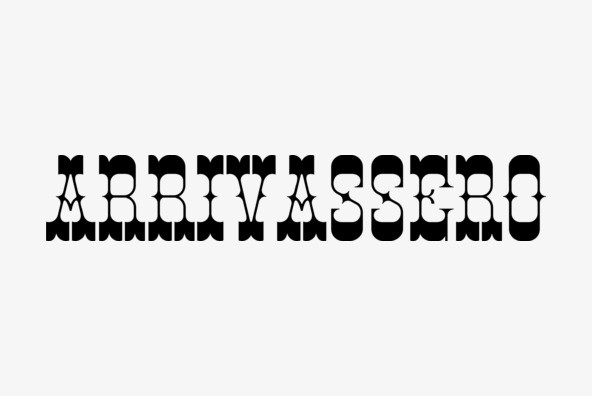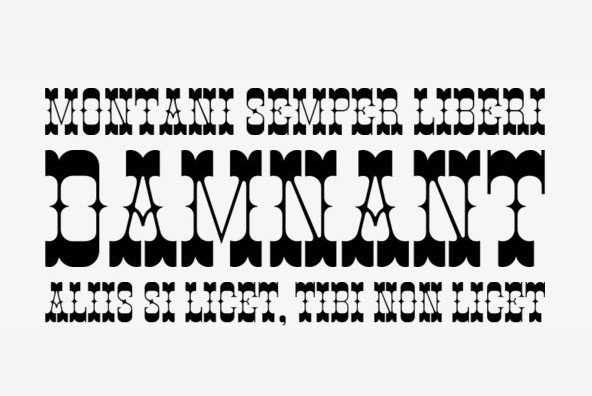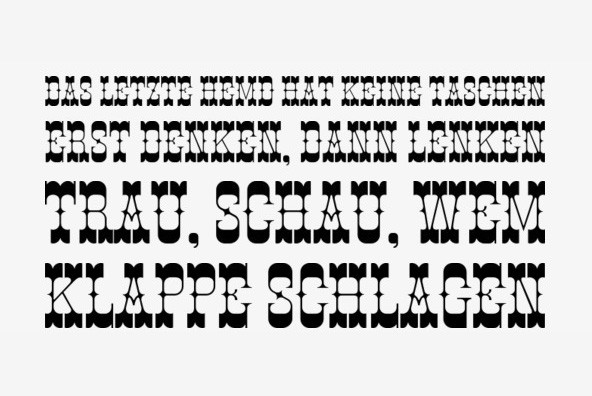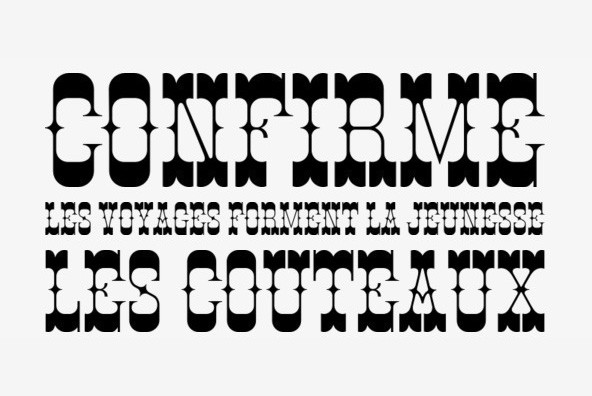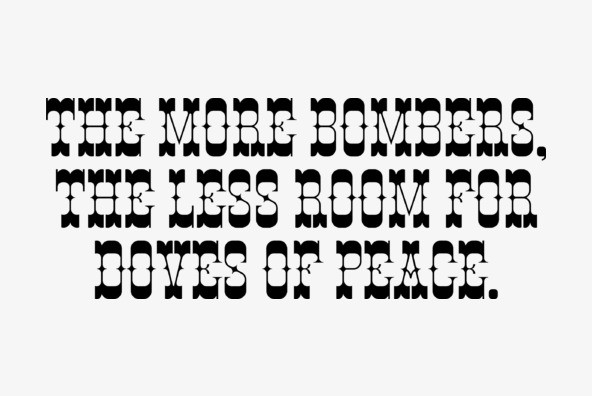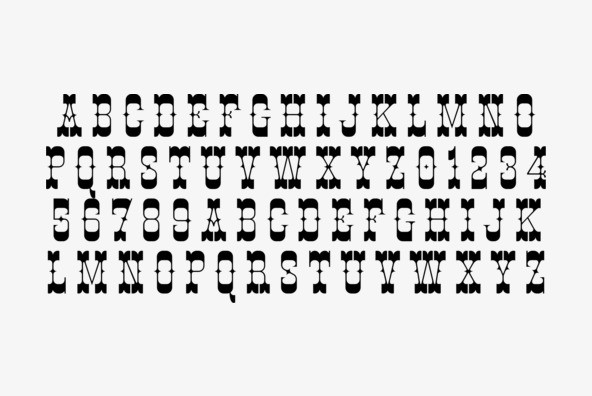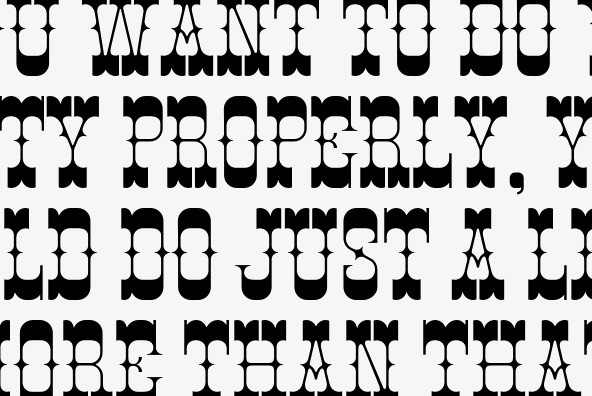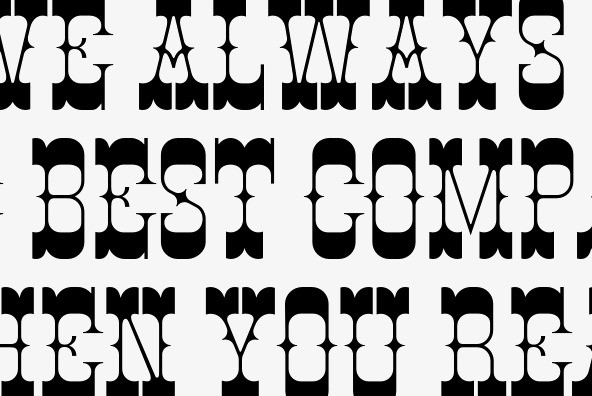
Old Lemonade Font
Old Lemonade
From the porch of small-town America to Farris-wheels and corn dogs at the World's Fair, Old Lemonade takes you back to simpler times. From posters to penny postcards, this style invites you to stroll leisurely down tree-lined streets...enjoy a trolley ride...even be a vaudeville voyeur. Cultivate your creations with Old Lemonade – it'll squeeze sweet pleasure into your special designs.